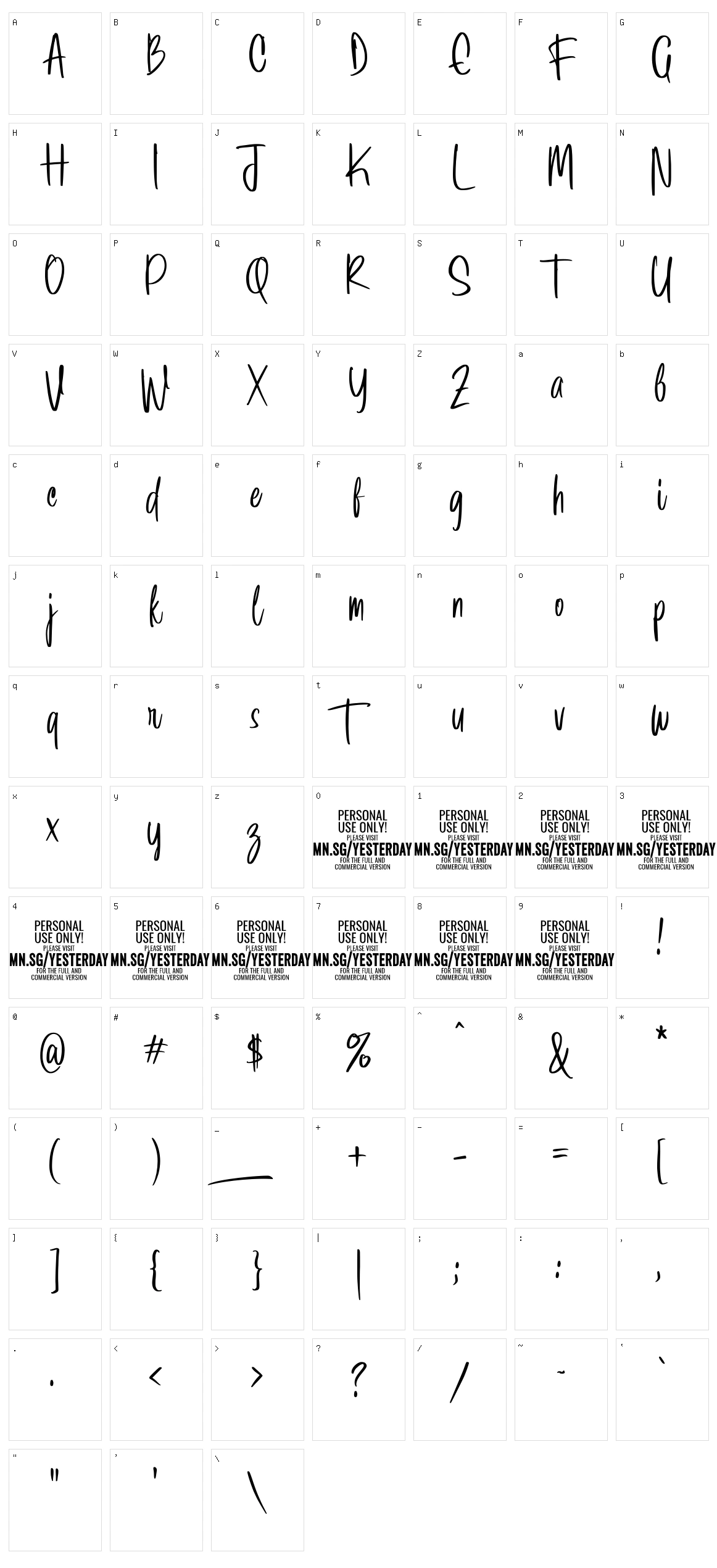
Yesterday Morning is a lively handwriting font that captures the essence of an active and cute brush style. This handmade calligraphy font is perfect for fashion projects, adding a sense of energy and excitement to your designs.
The font family's hand-brushed appearance brings an authentic, personal touch to your creative work, making it feel warm and approachable.
Use underscore _ anywhere in a word to make a swash.
Use multiple underscore to make different swashes.
Example: Crea___tion
The Yesterday Morning font family includes four engaging styles to suit various design needs:
Regular: A balanced and energetic style for everyday use
Regular Italic: Adds a playful touch and a sense of movement
Bold: Offers a bolder, more assertive presence for impactful designs
Bold Italic: Combines the strength of bold with the flair of italic
Built with advanced OpenType functionality, Yesterday Morning ensures top-notch quality and provides you with full control and customizability. It includes stylistic alternates, ligatures, and other features to make your designs truly unique.
The font offers extensive lingual support, covering all Latin-based languages, from Northern Europe to South Africa, from America to South-East Asia. It contains all the characters and symbols you'll ever need, including all punctuation and numbers.